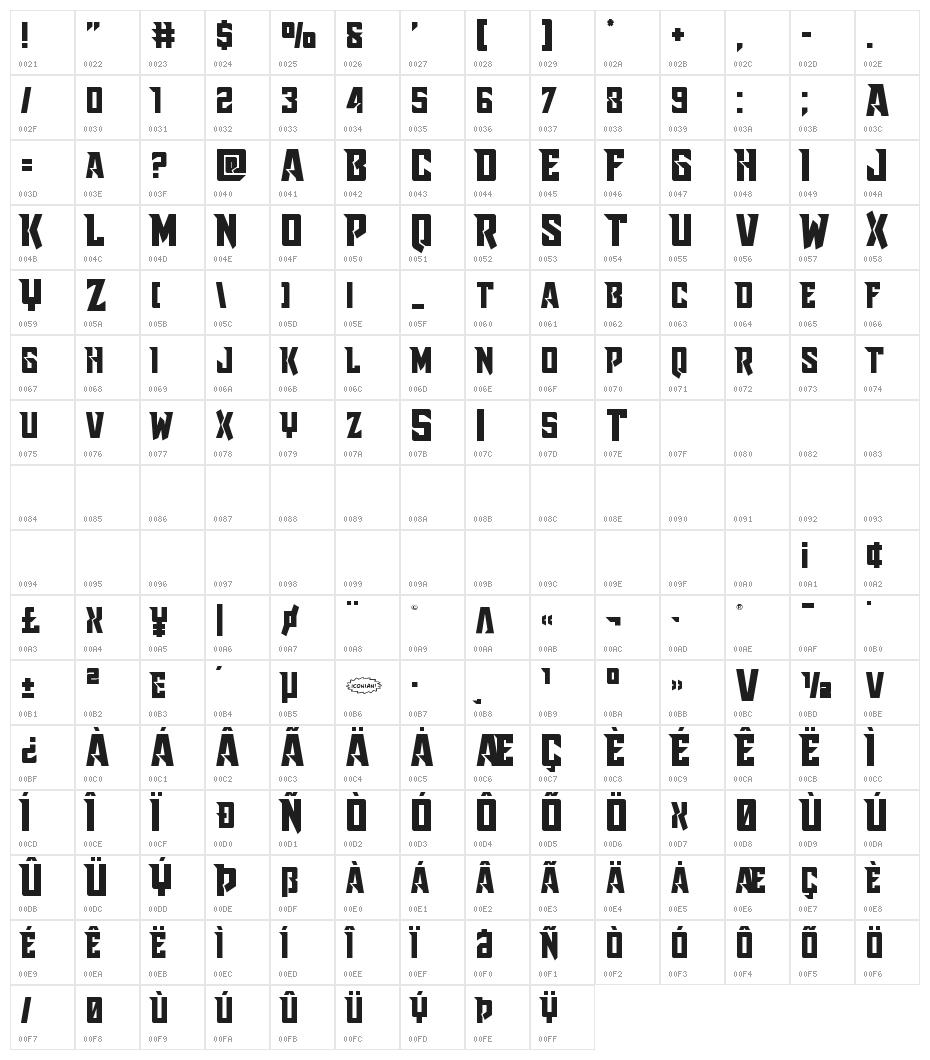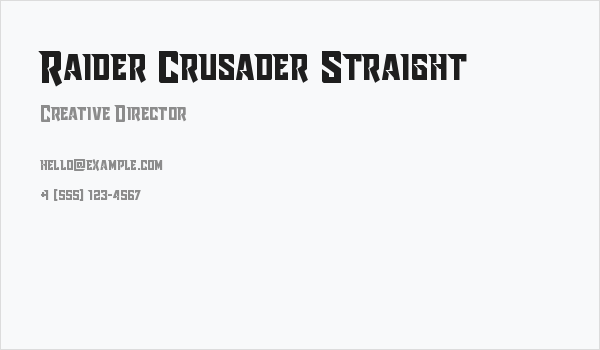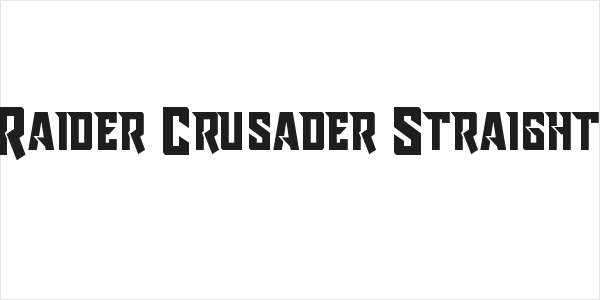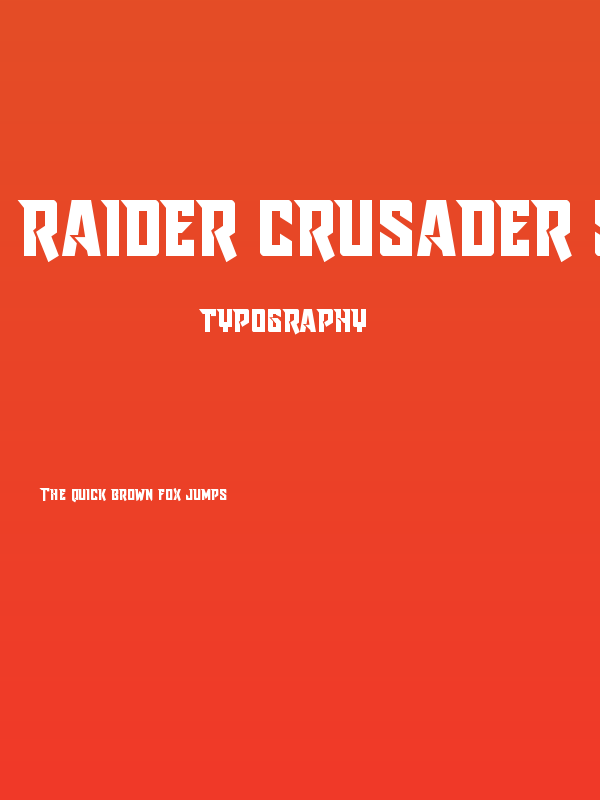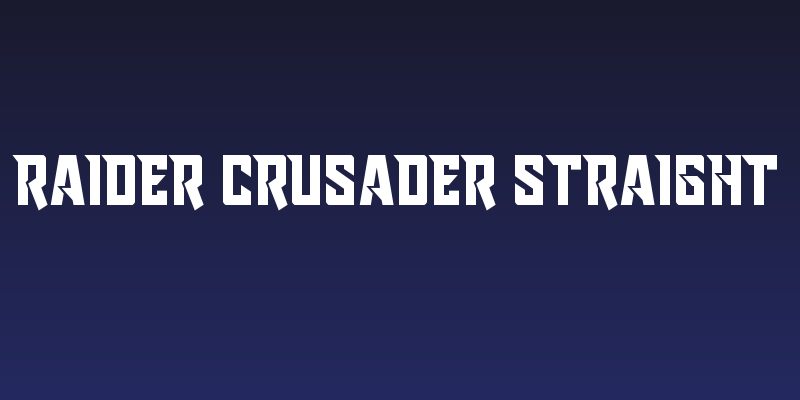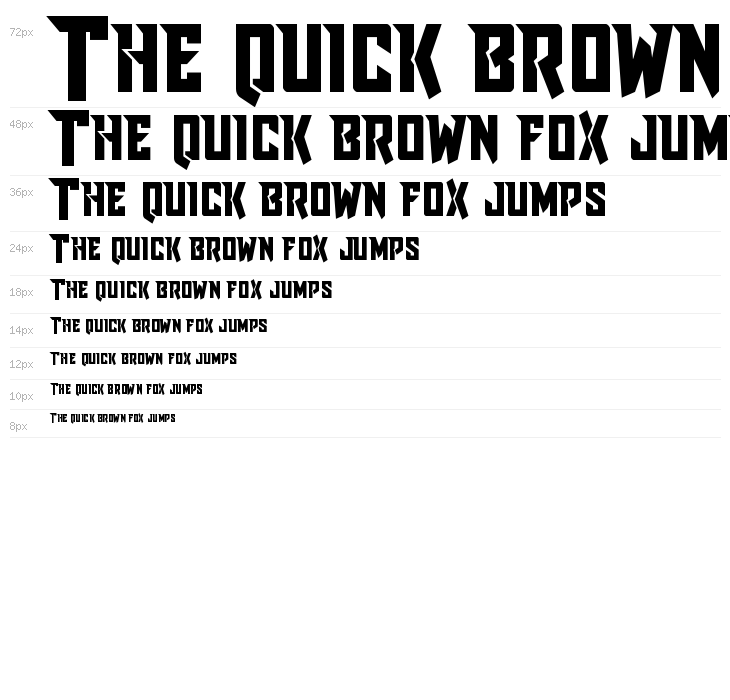
Raider Crusader Straight Font
Raider Crusader Straight Description
This font features a bold, angular design with sharp edges and a strong geometric influence. The characters are heavily stylized, giving off a futuristic and aggressive vibe. The uppercase letters are particularly striking, with a uniform height and width that creates a cohesive look. The numbers and special characters maintain the same boldness and angularity, ensuring consistency across all glyphs. This font's unique style makes it stand out, perfect for projects that require a strong visual impact.
Proposed ProjectsIdeal for sports team branding, video game titles, posters, and any project needing a bold, impactful typeface.